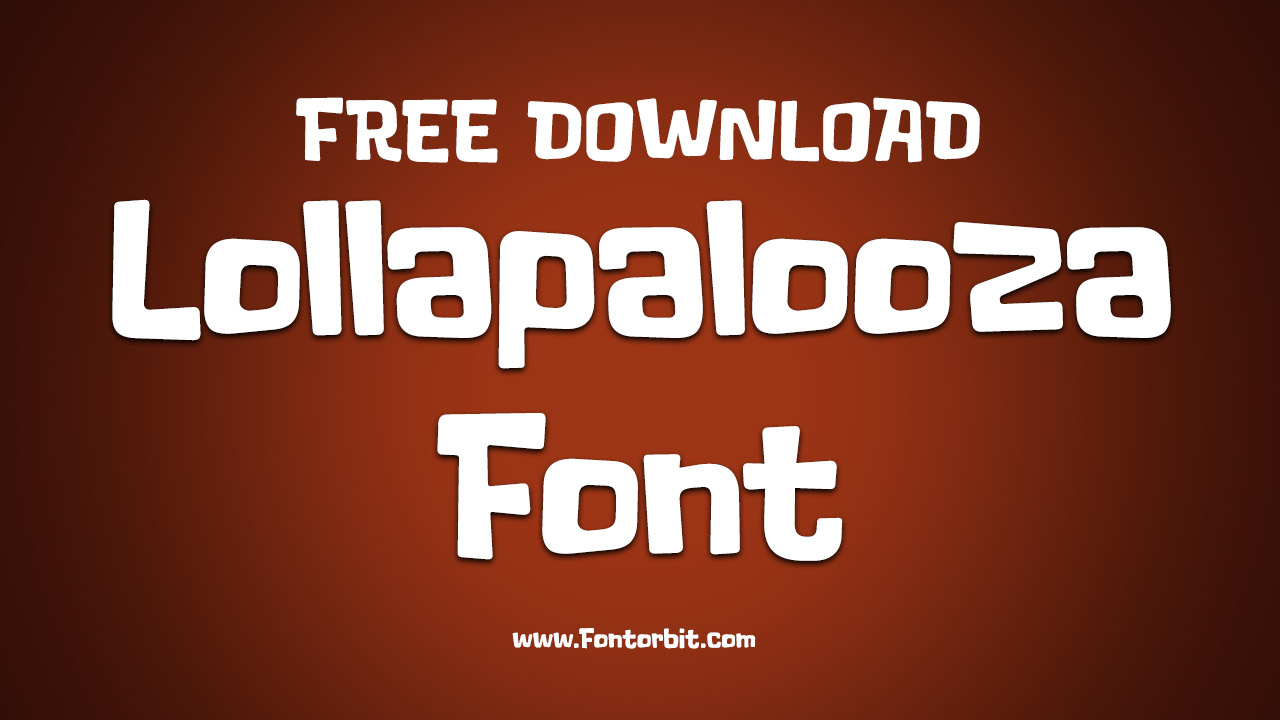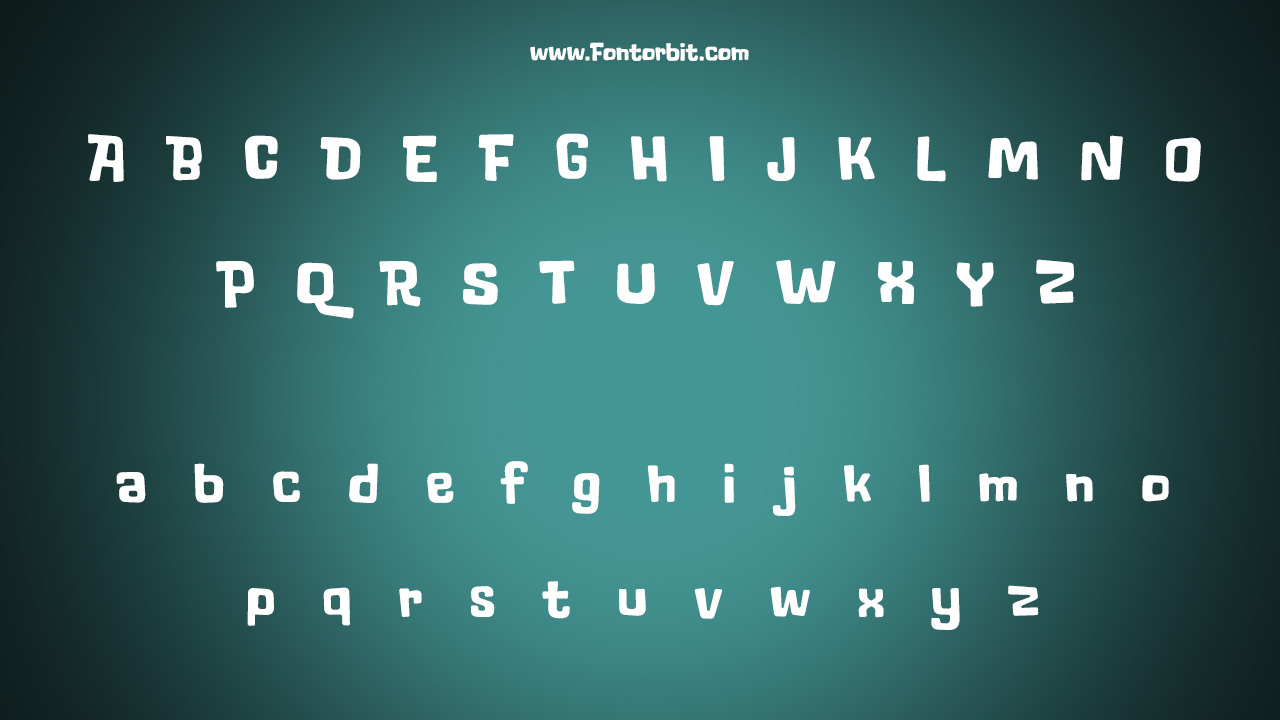
The Lollapalooza Font, designed by Héctor Barroso and Rodrigo Araya Salas, is a distinctive and playful typeface that complements the vibrant energy of the Lollapalooza music festival.
This font, released in 2015 by RodrigoTypo, reflects the festival’s dynamic and diverse musical lineup. Its unique style is ideal for making a bold statement in branding and promotional materials.
a. Lolapeluza-Regular
b. Lolapeluza-Black
c. Lolapeluza-Shadow
d. Lolapeluza-Line
The Lollapalooza Font is excellent for creating eye-catching designs that reflect music festivals’ excitement and eclectic nature. Its varied styles make it versatile for various applications, ensuring your materials stand out with a unique and vibrant look.
1.What Is The Significance Of The Lollapalooza Font?
The Lollapalooza Font captures the festival’s vibrant, eclectic spirit, enhancing branding and promotional materials with its playful, bold design.